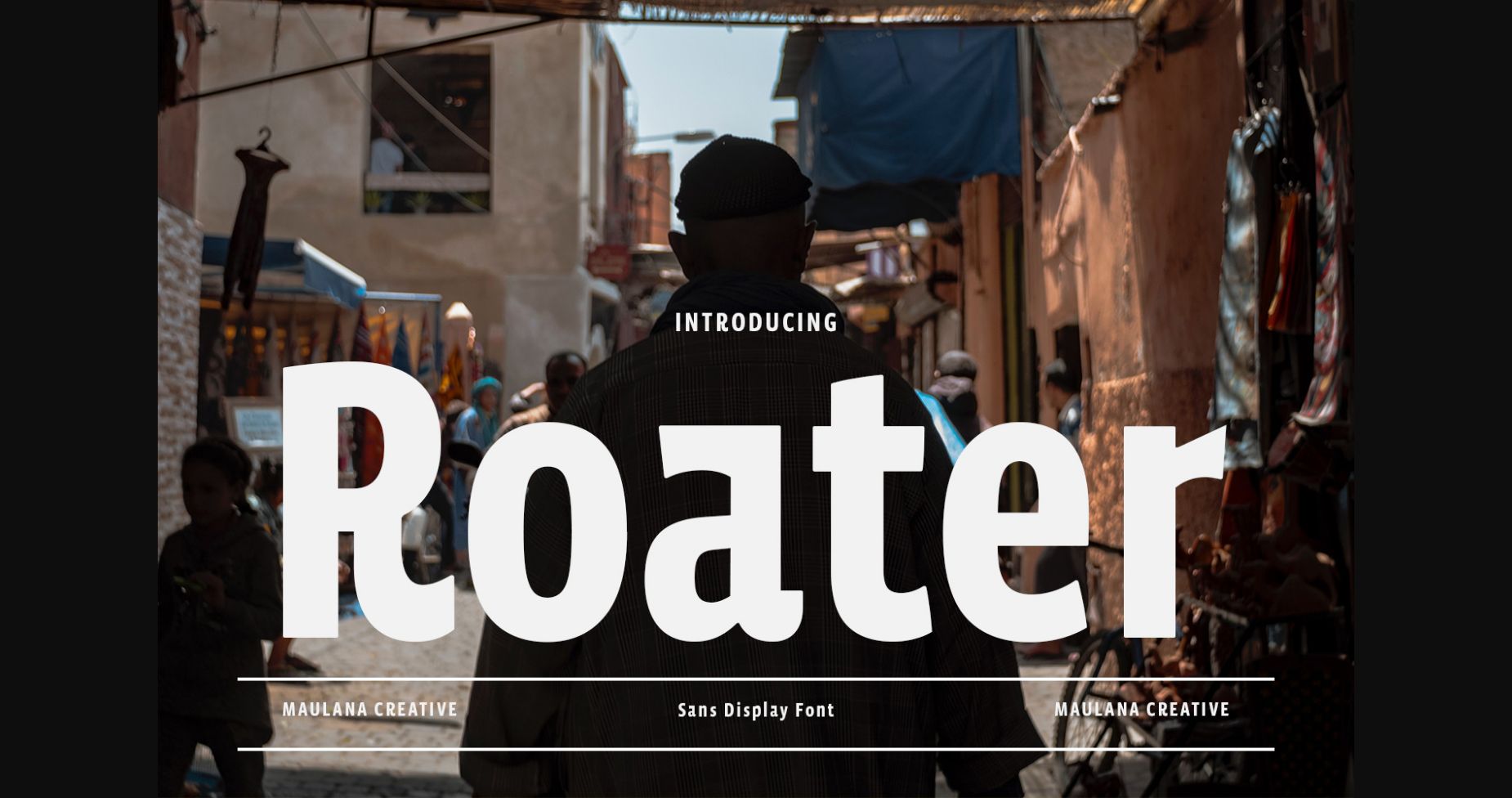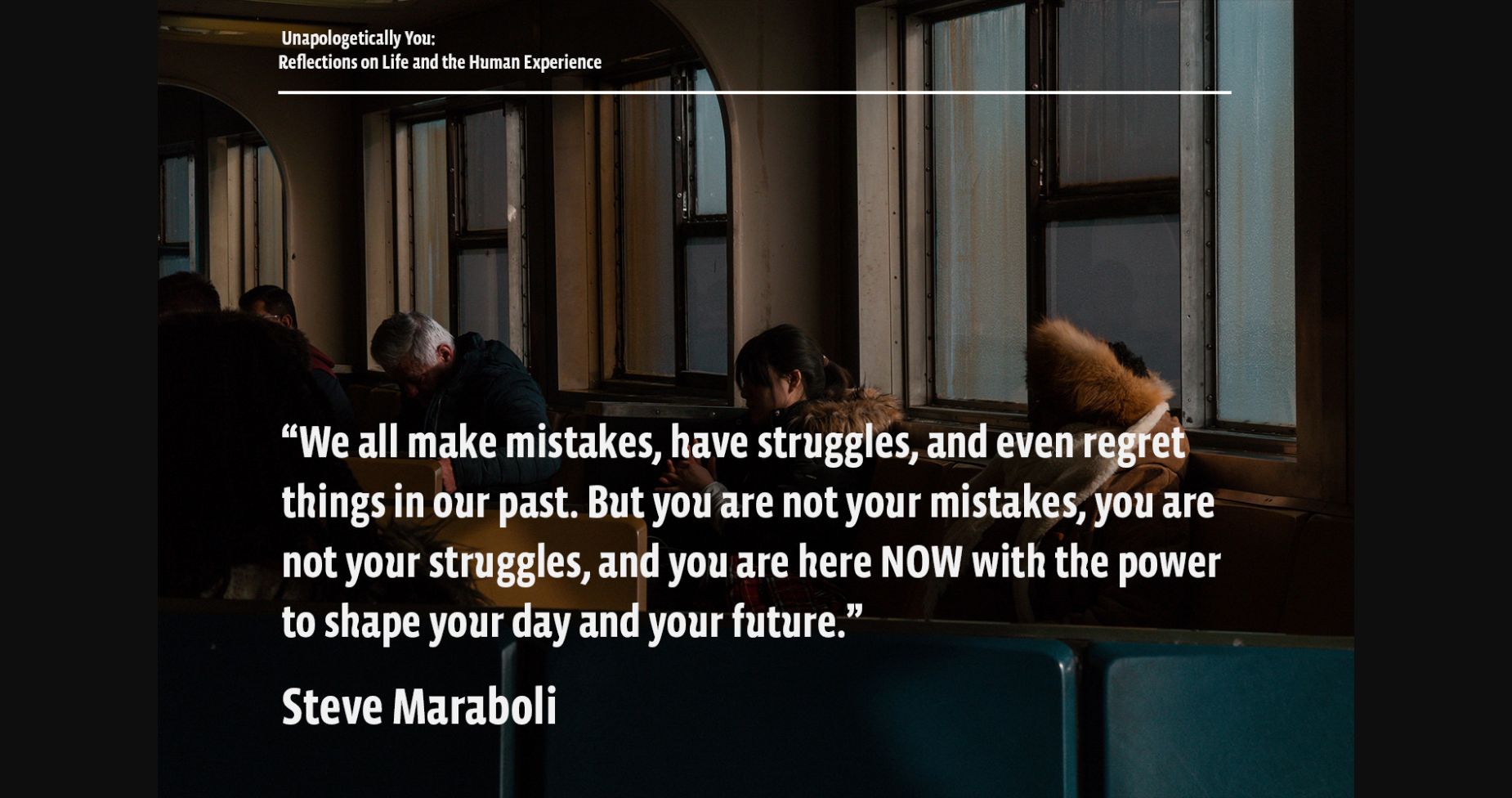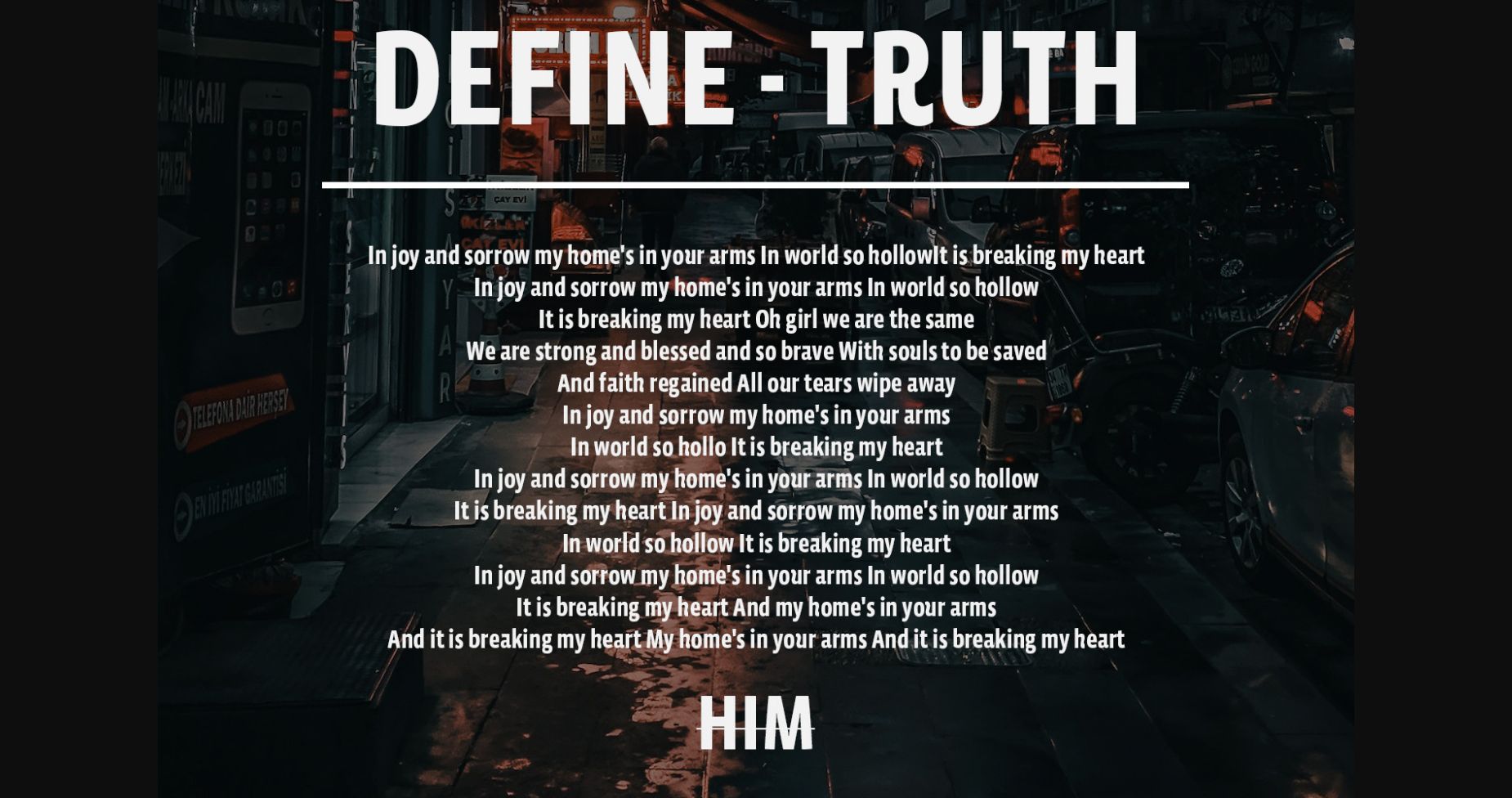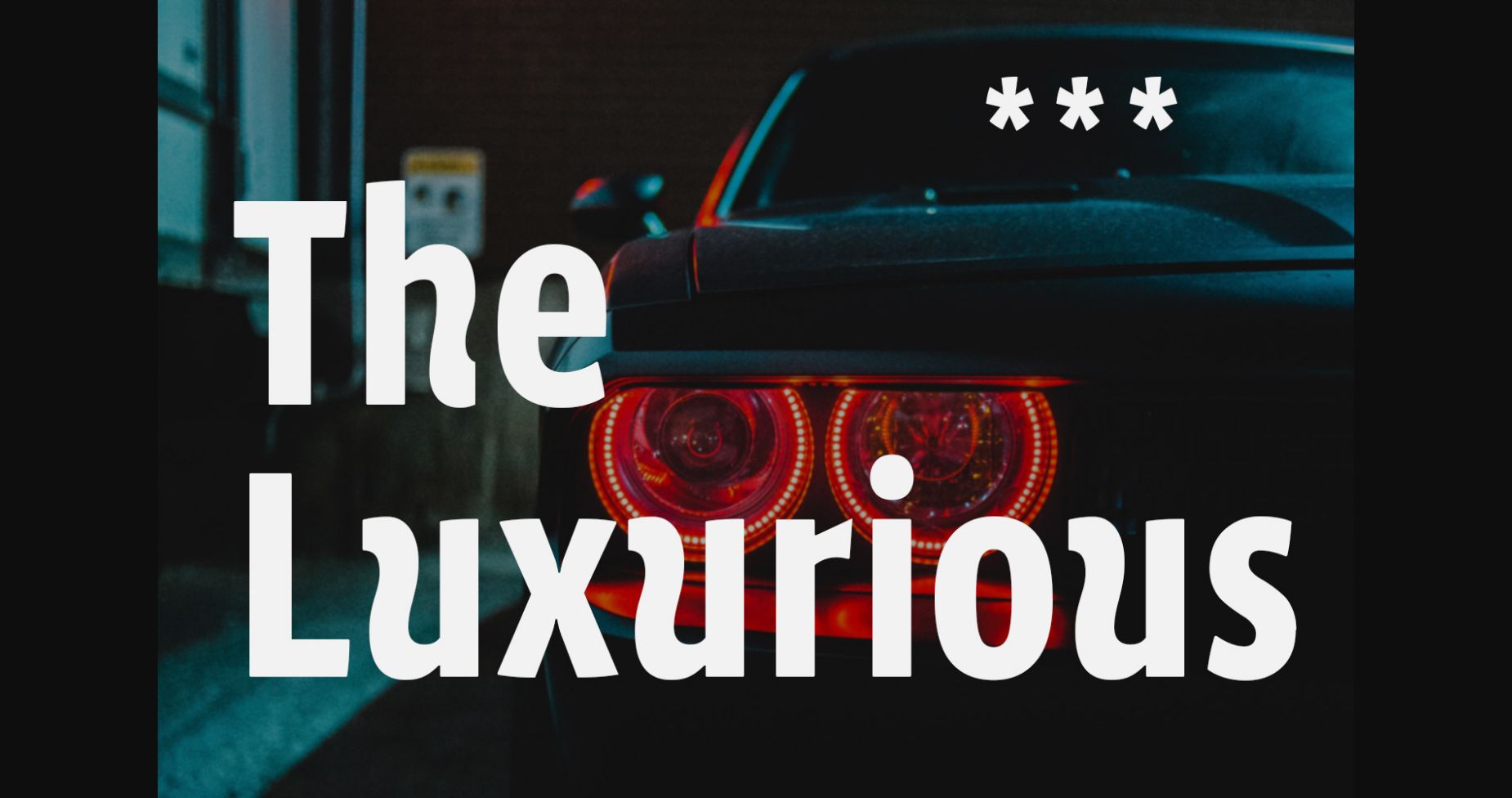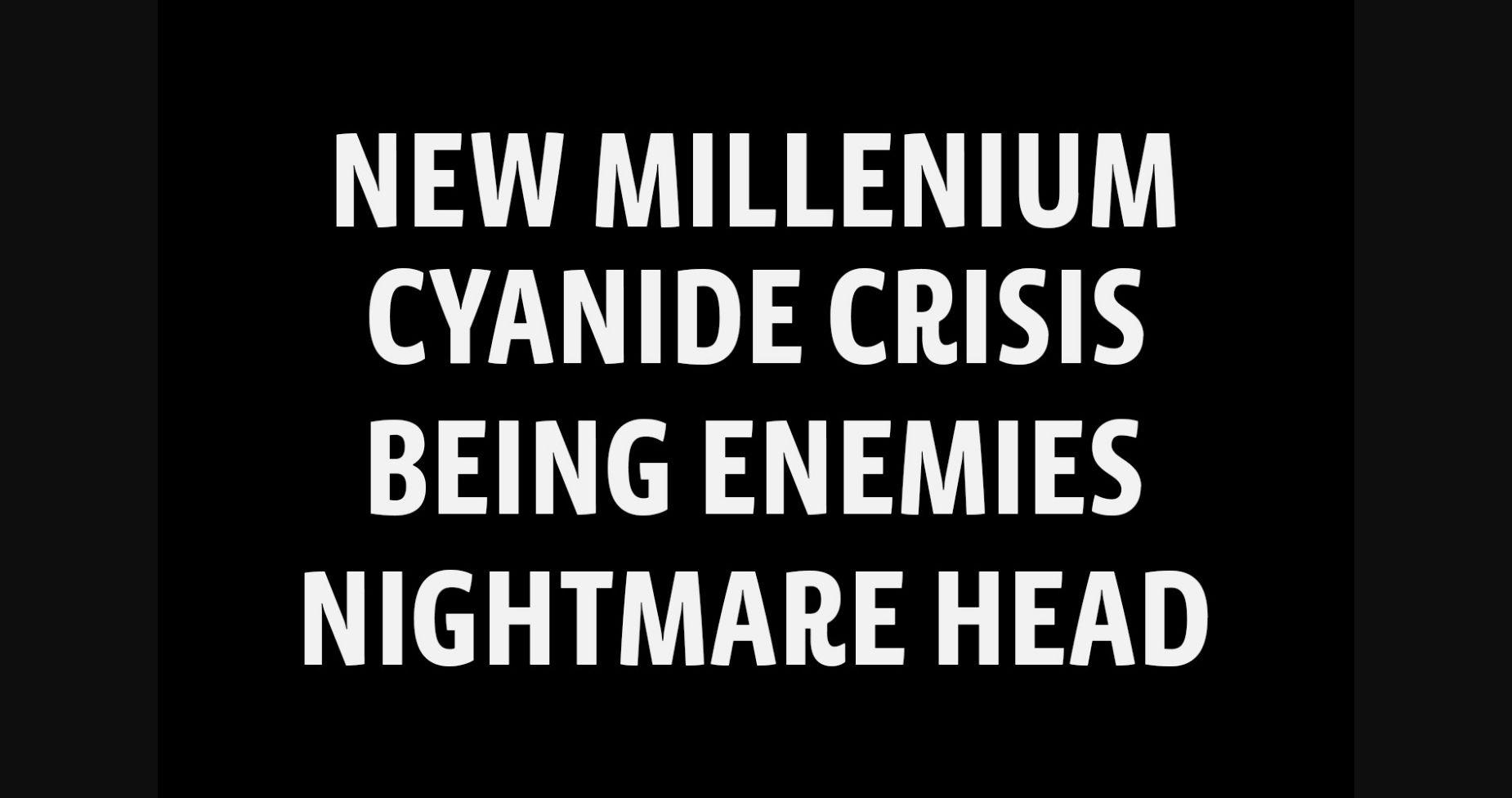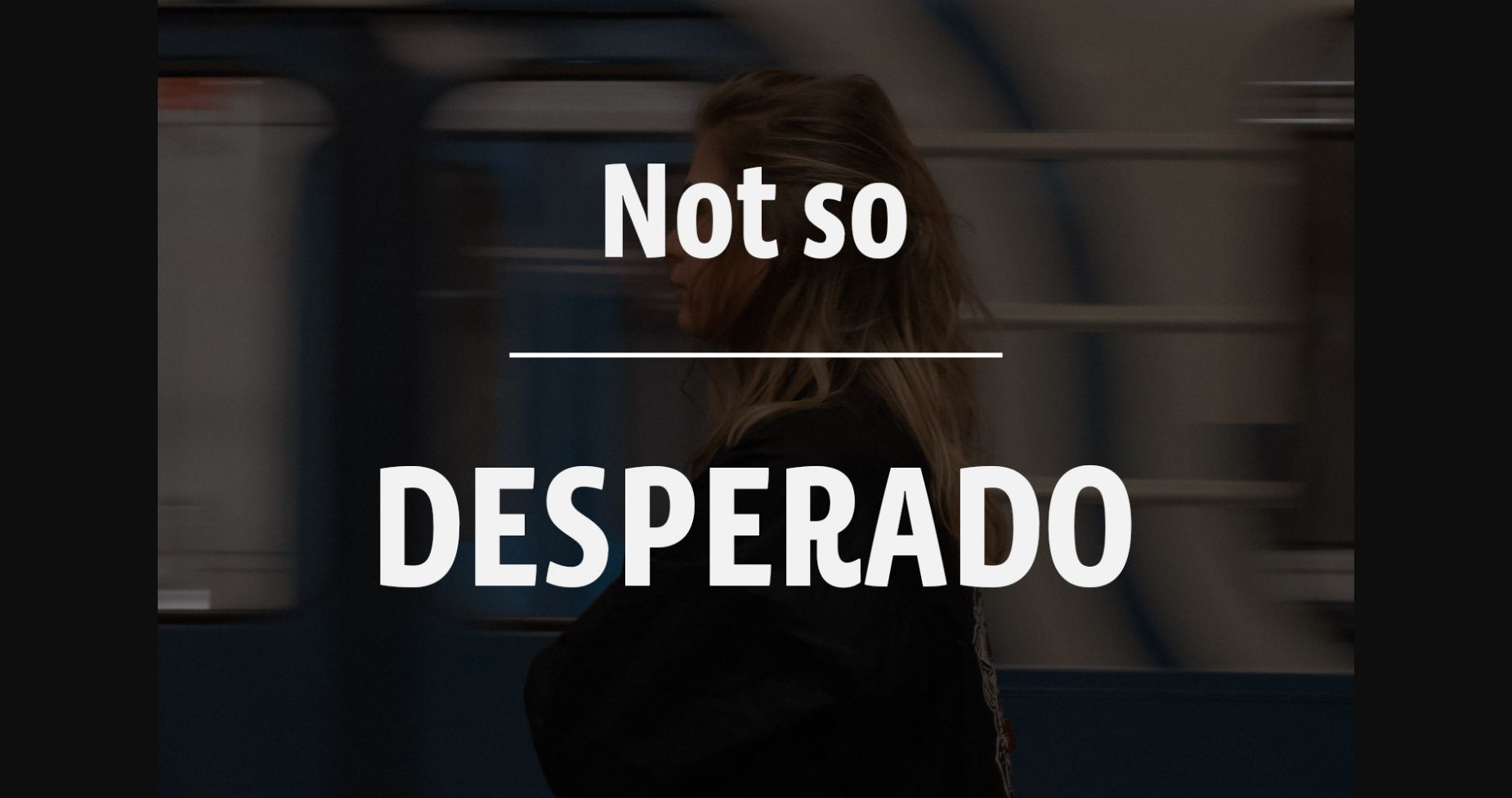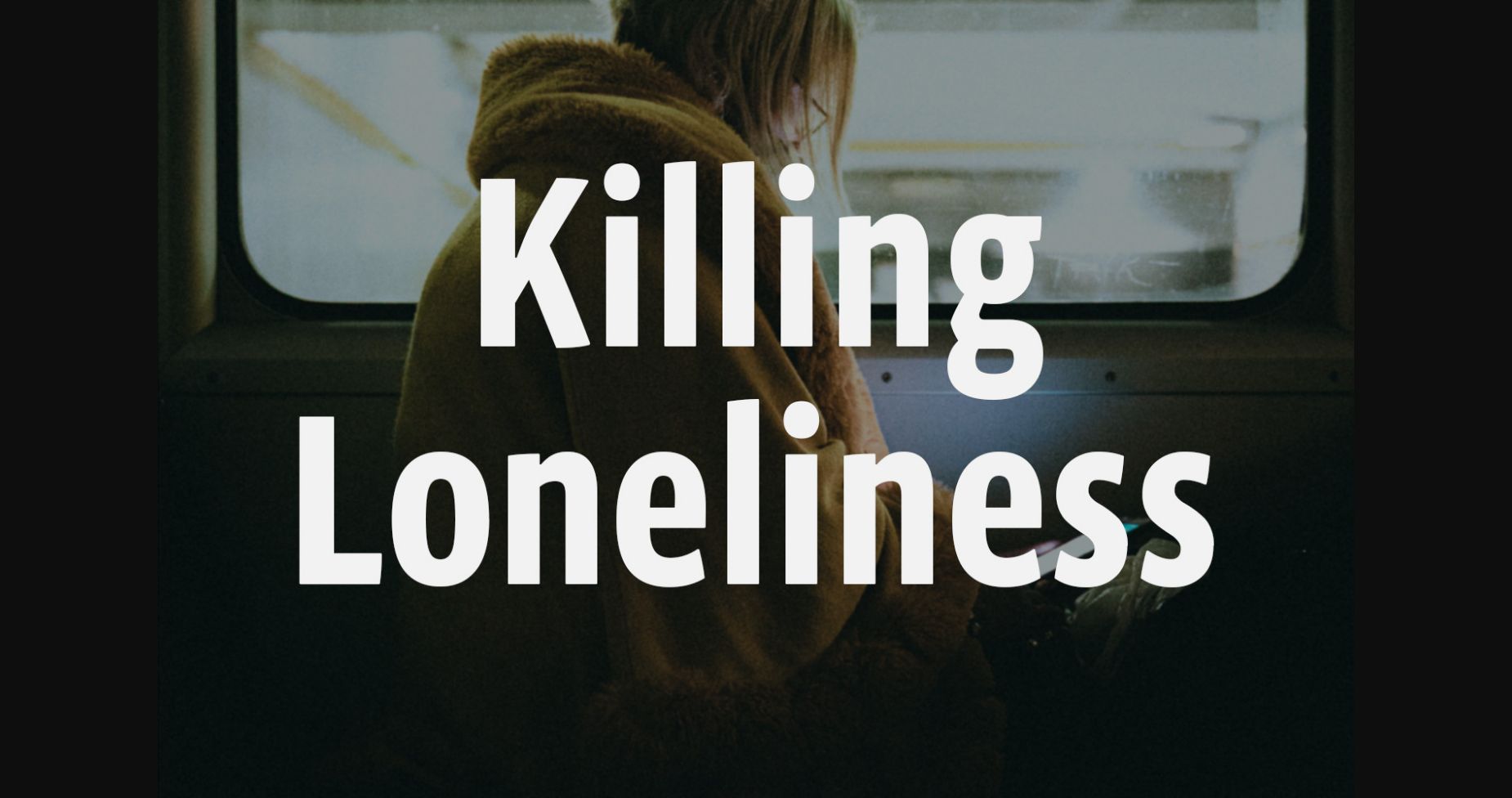
Roater is an elegant and modern sans-serif font. This minimalist and clean vibe can easily apply to your favorite designs such as book covers, magazines, social media posts, invitations, and so much more!